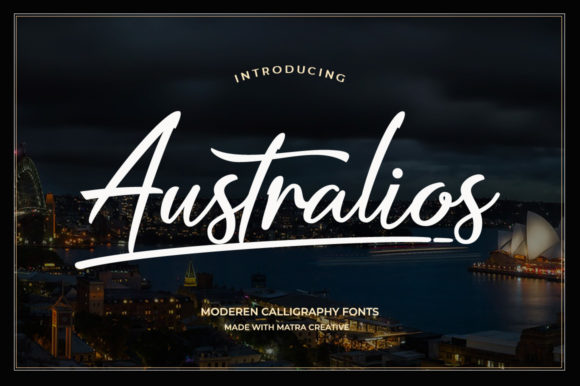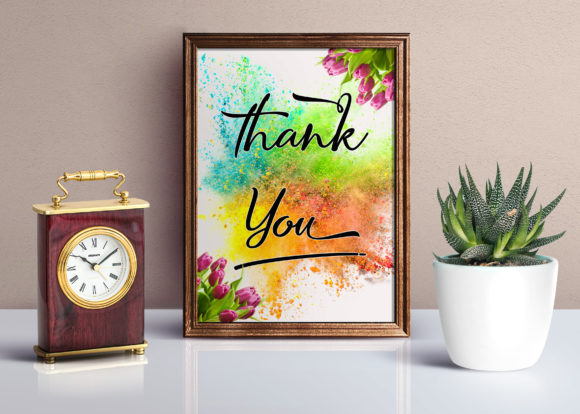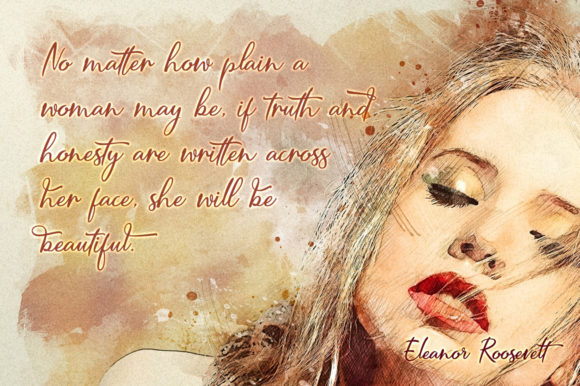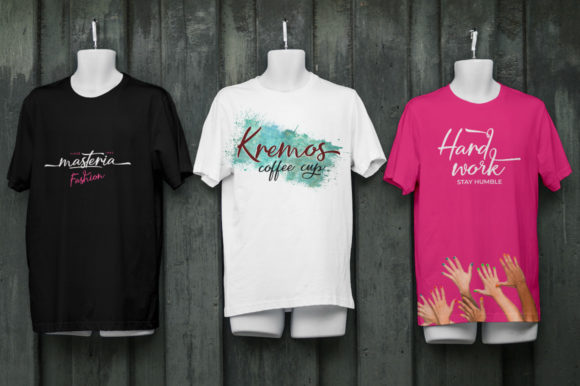
About Australios Font
Introducing “The Australios,” a modern script font designed to bring a beautiful handwritten style and a natural look to your projects. This font is more than just a typeface; it’s a design asset crafted with a delightful and natural touch, making it perfect for a wide range of designs that demand a genuine and handwritten feel.
“The Australios” stands out with its modern script that exudes a beautiful handwritten style, adding a natural and authentic look to your text. Whether you’re working on branding, invitations, logos, quotes, or any project that requires a touch of warmth and sincerity, this font delivers with its unique and charming style.
Its handwritten style ensures that your text feels genuine and approachable, making it suitable for various applications. Logos designed with this font convey a sense of authenticity and friendliness, creating a welcoming and memorable brand identity. Branding materials, invitations, quotes, and other designs crafted with “The Australios” carry a natural and handcrafted vibe, making them visually appealing and relatable.
The versatility of “The Australios” makes it a great choice for a variety of creative applications, providing a natural and handwritten look that adds a personal touch to any design context.
In summary, “The Australios” is more than just a font; it’s a design companion that brings a modern script style with a beautiful handwritten touch to your projects. Embrace its warmth for branding, invitations, logos, and more, and let “The Australios” infuse your designs with a natural and authentic charm.